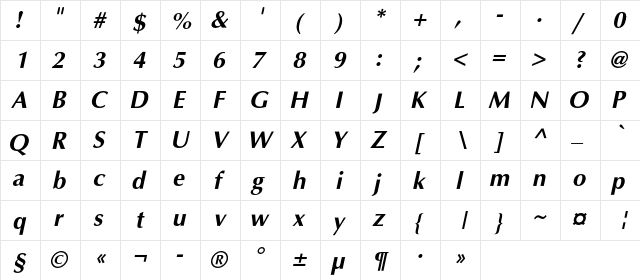
AGOpusC Bold Italic
Design Context for AGOpusC Typeface
AGOpusC is a composed and adaptable typeface that performs quietly and consistently across a wide range of design contexts. Its italic angle brings a sense of urgency and motion to the letterforms. Its bold stroke weight gives it real presence on the page.
Pro Tip: Use AGOpusC for emphasis, pull quotes, and subheadings where its slanted energy can add rhythm to the layout.